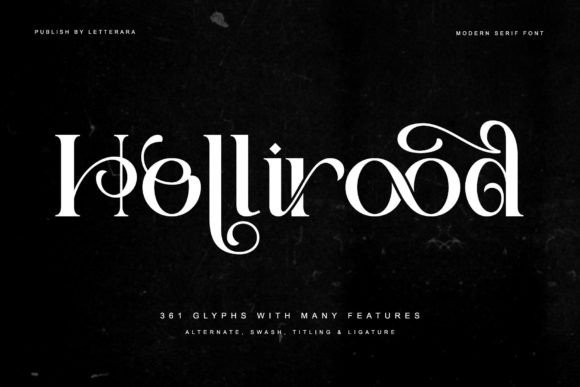
Dive into the realm of sophistication and grace with Hollirood, a majestic serif font that will elevate your designs to unparalleled heights. Its clean and elegant lines embody a timeless aesthetic, making it the perfect choice for a diverse range of projects that demand a touch of luxury and refinement.
With Hollirood, your designs will exude an aura of elegance that captivates and inspires. Its versatility shines through its ability to adapt seamlessly to various design concepts, from high-end logos and branding to classy editorial designs and captivating magazines.
Imagine your designs adorned with Hollirood's sophisticated charm, attracting attention and leaving a lasting impression. Its versatility extends to packaging, posters, and movie titles, adding a touch of cinematic grandeur to your creations.
Visualize the impact of Hollirood on cosmetic brands, fashion promotions, and art gallery branding. Its timeless appeal enhances the allure of your products, inviting customers to indulge in the elegance and sophistication that Hollirood embodies.
Hollirood's PUA encoding ensures effortless access to all its glyphs, empowering you to unleash your creativity and explore endless design possibilities. Elevate your designs to new heights with Hollirood, the font that embodies grace, sophistication, and versatility.